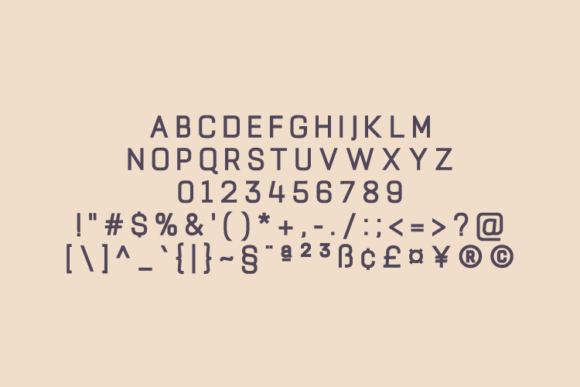
Uncovering Hidden Gems in Typography: The Charm of Gercoff Black Font
Have you ever stumbled upon an old vintage poster or a classic movie title and been captivated by the elegant simplicity of the font? That’s exactly what happens when designers come across the Gercoff Black Font. This clean and simple sans serif font is a timeless treasure that adds a touch of sophistication to any design project.
Perfect for vintage logo designs, headers, and small amounts of text, the Gercoff Black Font is a valuable addition to any designer’s toolkit. Its smooth edges and classic feel make it an ideal choice for creating a retro vibe that’s both nostalgic and modern. With its versatility and elegance, the Gercoff Black Font is a must-have for designers looking to add a touch of sophistication to their work.
Key Features of Gercoff Black Font
- Unique Characteristics: The font features a bold and modern design, with sharp lines and geometric shapes, making it ideal for use in headlines, titles, and other attention-grabbing applications.
- Font Style: Gercoff Black Font is a sans-serif font with a bold weight, offering a clean and contemporary look that is perfect for modern designs.
Gercoff Black Font Review
Gercoff Black Font is a bold and edgy sans-serif typeface that catches the eye with its striking appearance. ✨ It’s perfect for creating a dramatic and attention-grabbing visual identity for a brand or design project. The font’s geometric shapes and clean lines give it a modern feel that’s sure to appeal to those who like a bit of edge in their design.
Here are some of the things that work well with Gercoff Black Font:
- ✨ Unique and eye-catching appearance that grabs attention
- ✨ Perfect for creating a bold and dramatic visual identity
- ✨ Clean and modern design that’s sure to appeal to a wide audience
- ✨ Highly customizable, allowing for a range of different font styles and sizes
- ⚠️ Limited legibility in small font sizes, which can make it difficult to read
- ⚠️ May not be suitable for use in body text, due to its bold and attention-grabbing nature
- ⚠️ Can be a bit too edgy for some audiences, so be sure to consider your target market before using it
Overall, I think Gercoff Black Font is a great choice for designers who want to add a bit of drama and edge to their designs. Just be sure to use it sparingly and in the right context to avoid overwhelming your audience.
Getting the Most Out of Gercoff Black
To get the most out of Gercoff Black, use it in conjunction with bold or italic styles to add emphasis to your text. Experiment with different font sizes to create visual hierarchy in your design. Use Gercoff Black to add a touch of sophistication and elegance to your text-based designs.
Gercoff Black is ideal for use in logos, branding materials, and other text-based designs where a bold and sophisticated font is required. It’s also suitable for use in formal documents, presentations, and marketing materials where a professional and elegant font is needed.